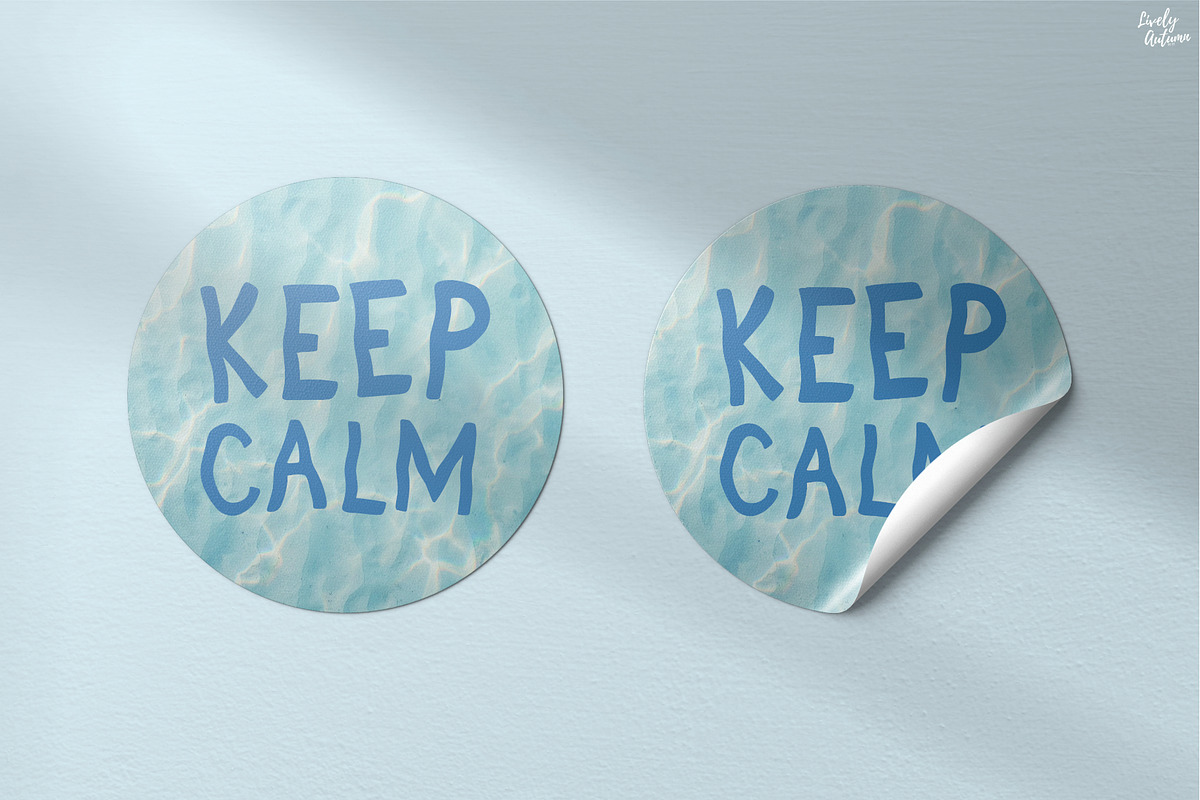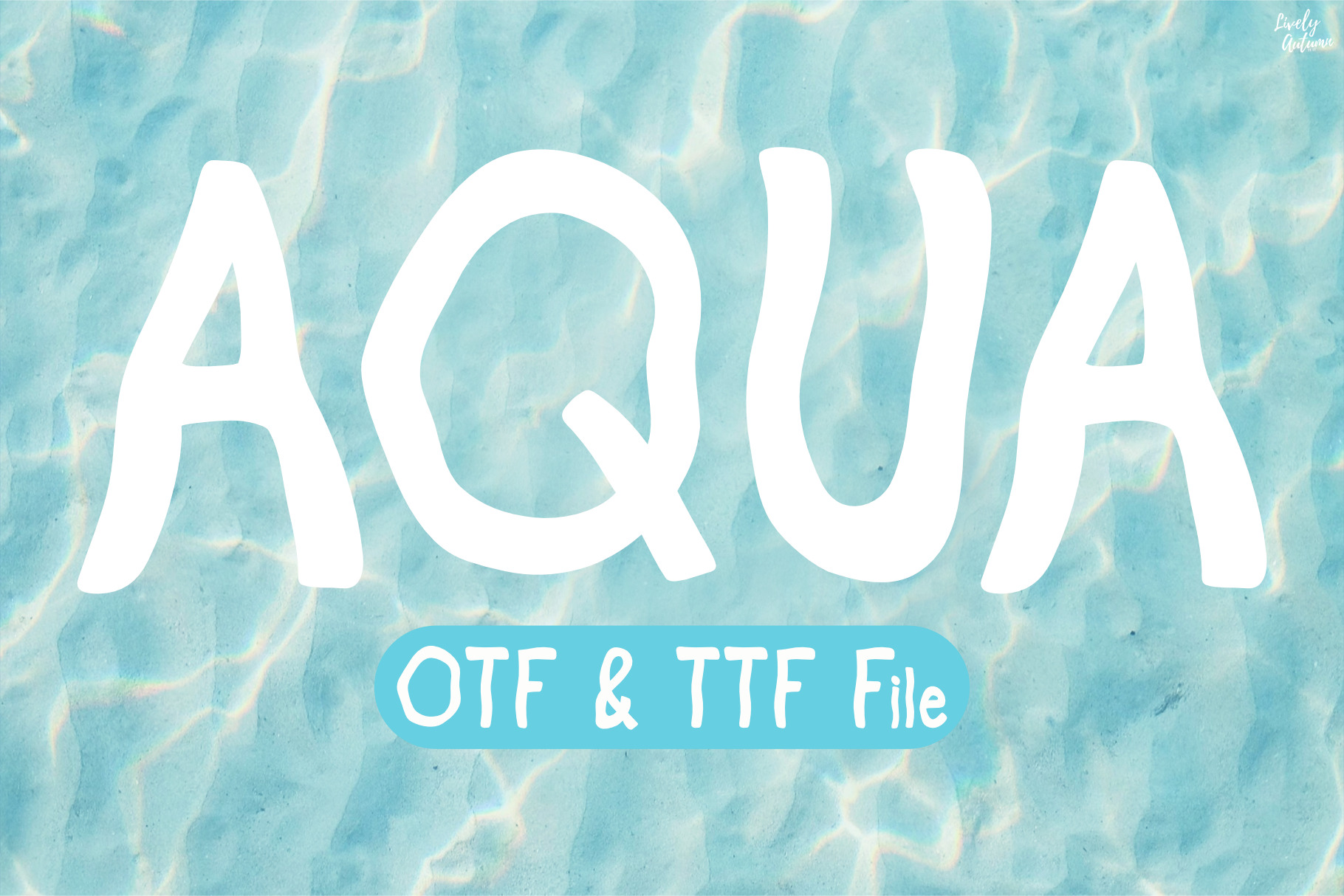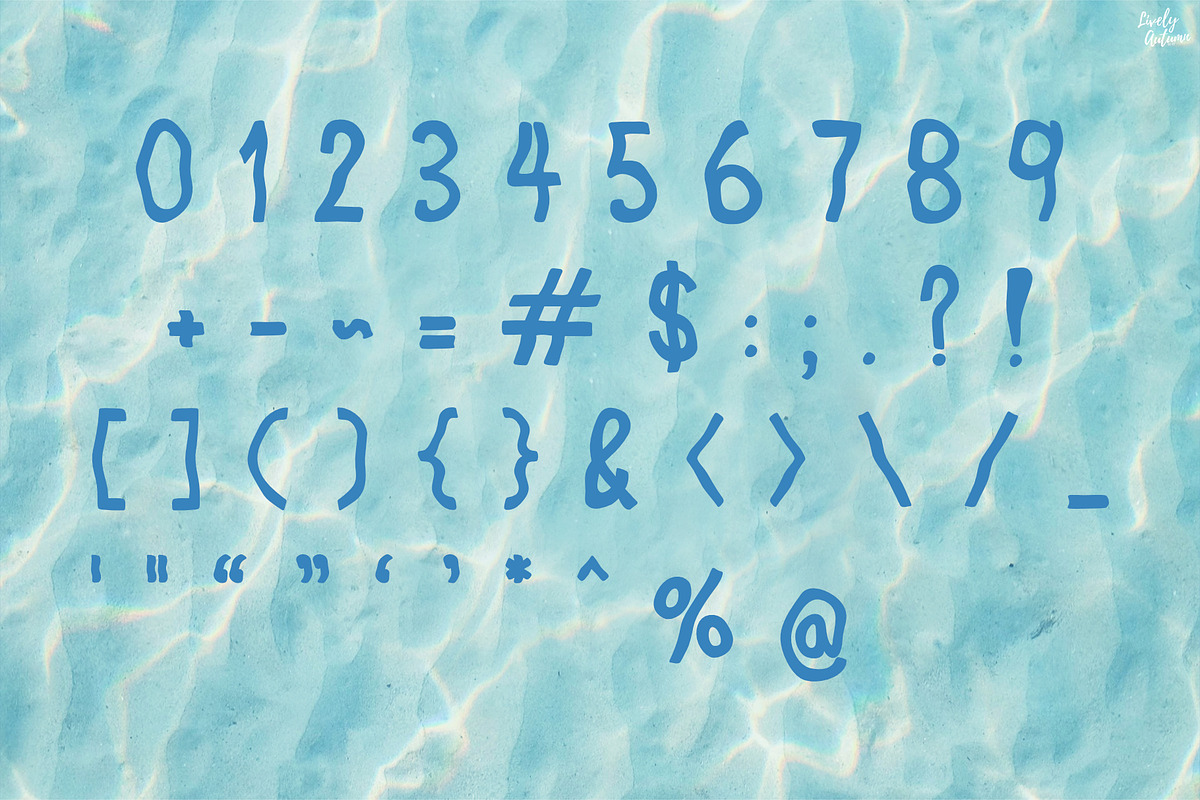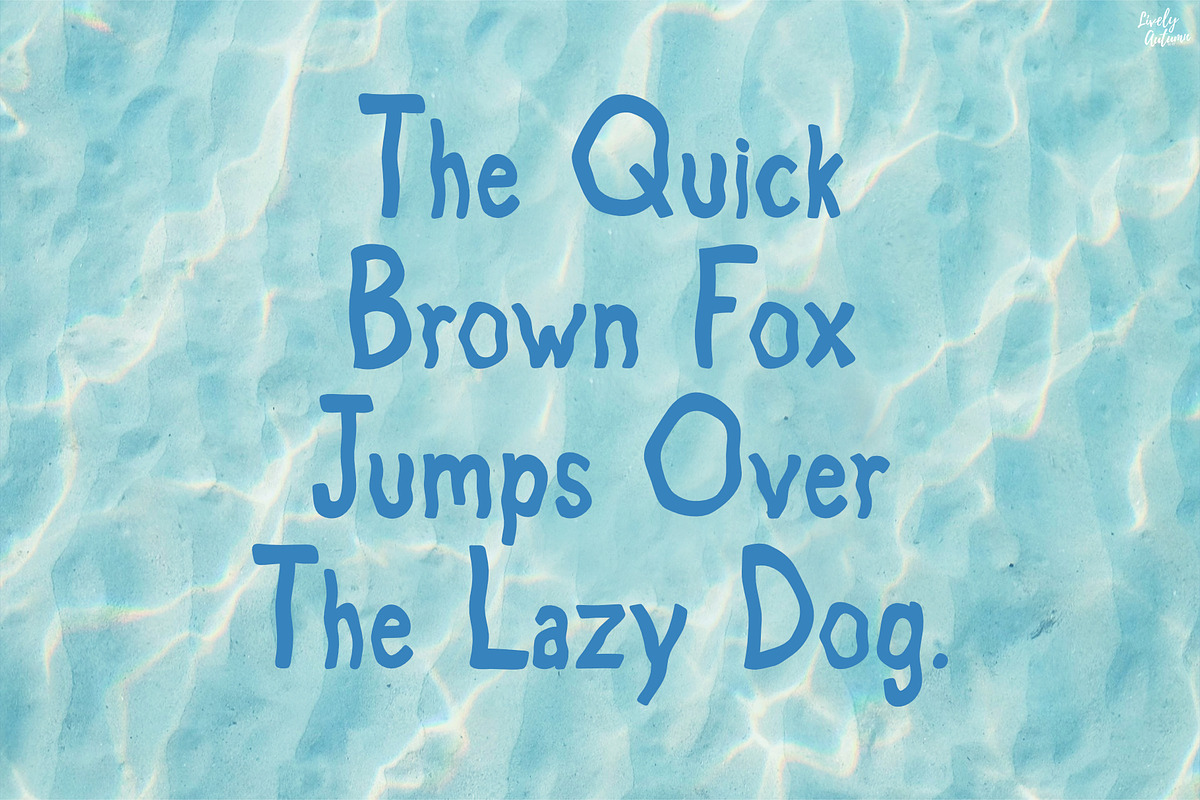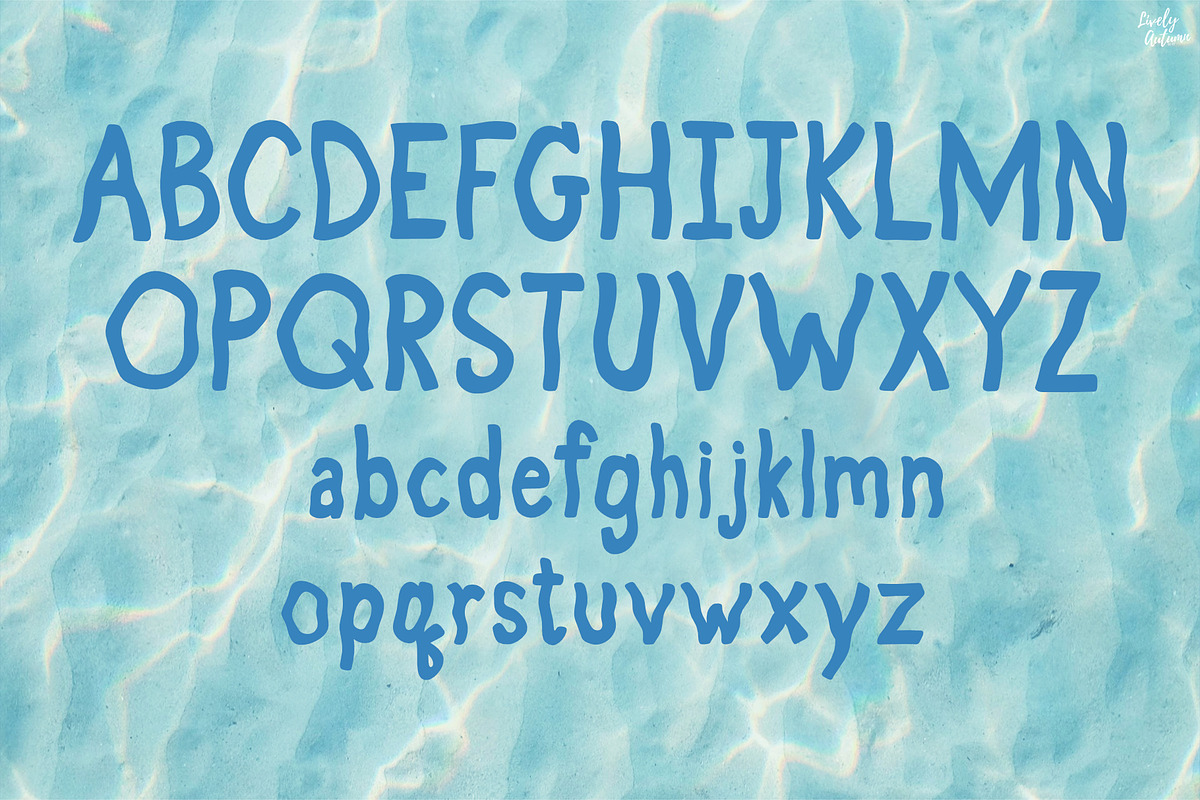
Aqua | Display font
Aqua font is a wavy font that looks like the letters are underwater. Perfect for your personal projects and various projects. From invitations to posters, social media graphics, journals, and much more.
- Font includes: uppercase, lowercase, numbers, and punctuation